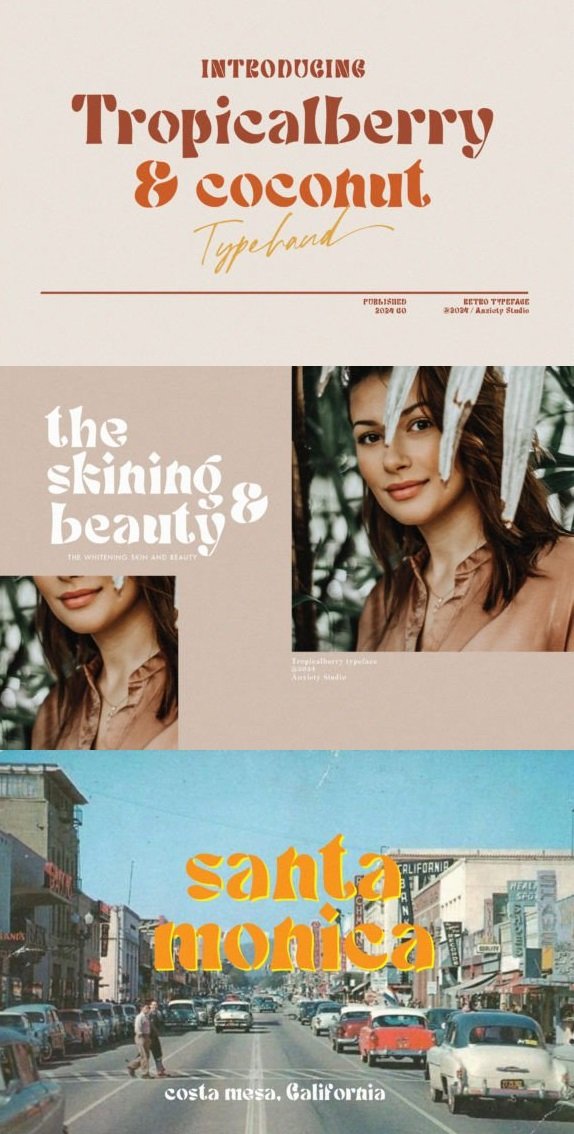
Immerse yourself in the brilliance of Tropicalberry, a refined sans serif font exuding an irresistible charm. With its beguiling curves gracing simple yet artistic letterforms, every element of this design harmoniously coexists in a beautiful equilibrium. Drawing its inspiration from the grandeur of Italy’s storied typographic traditions, Tropicalberry sets the stage for a captivating visual display. This font’s bold, unconventional character nuances are an ode to the richness of ancient lineage, embodying an extraordinary sense of aesthetics. A true masterpiece, Tropicalberry is a timeless font that transforms ordinary text into an outstanding visual experience.